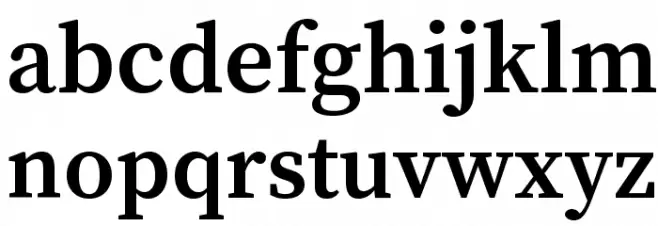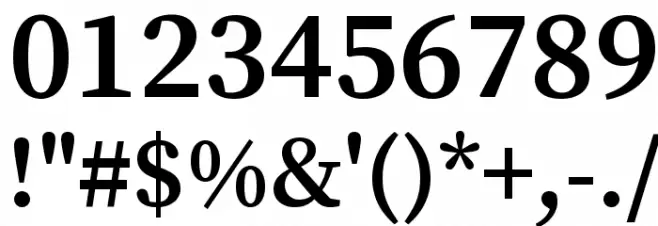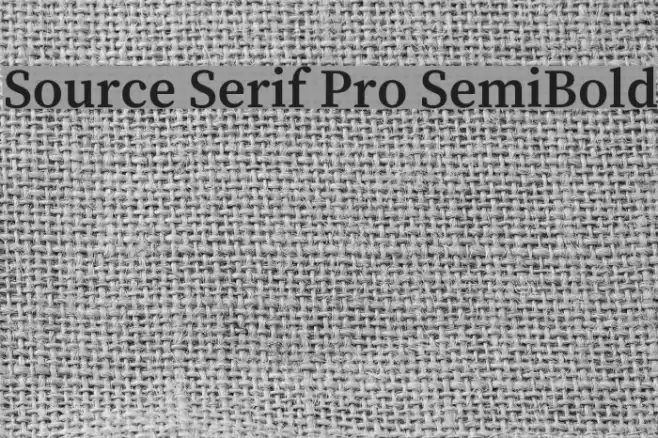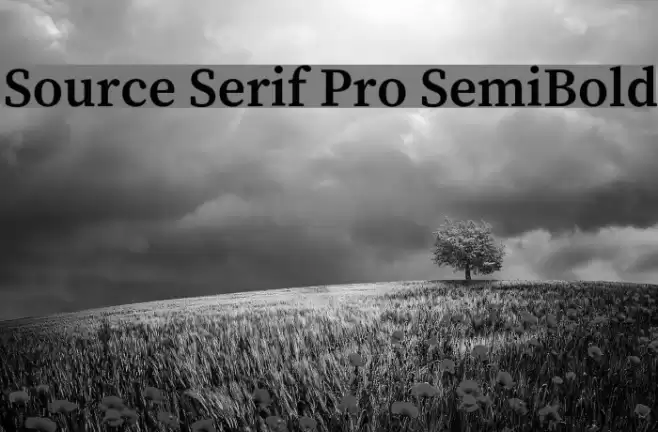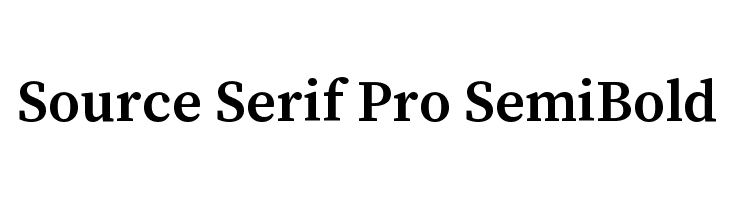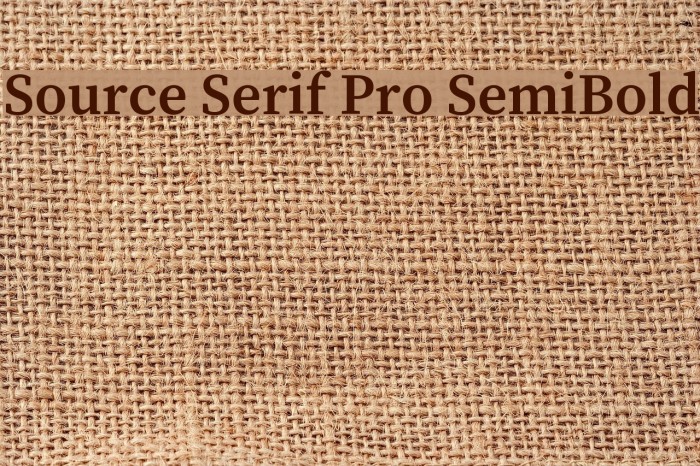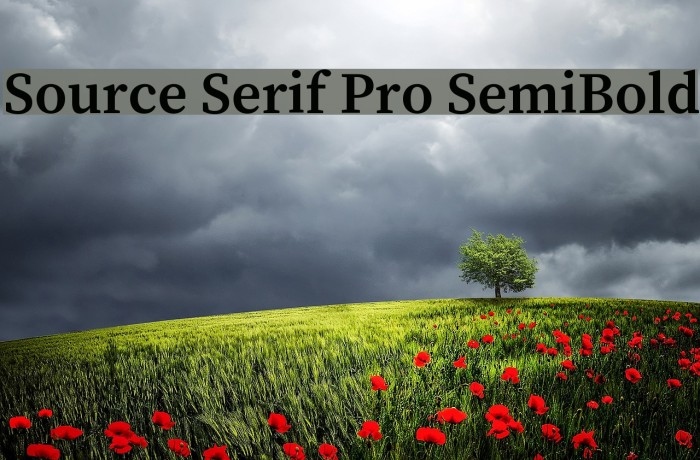
Source Serif Pro SemiBold
This font features a classic serif style with a semi-bold weight, offering a balanced and readable appearance. The serifs are well-defined, providing a traditional and formal look. The characters are proportionate, with a moderate contrast between thick and thin strokes, enhancing legibility. The uppercase letters are slightly taller than the lowercase, maintaining a consistent and harmonious flow. The numerals are clear and distinct, making them suitable for both text and display purposes. Special characters are elegantly designed, fitting seamlessly with the overall aesthetic.
A classic serif font with semi-bold weight and moderate contrast, ideal for formal and readable text.
- Proposed Projects: Ideal for editorial design, book covers, formal invitations, and corporate branding.
- Category: Serif
- Overall Style: Classic